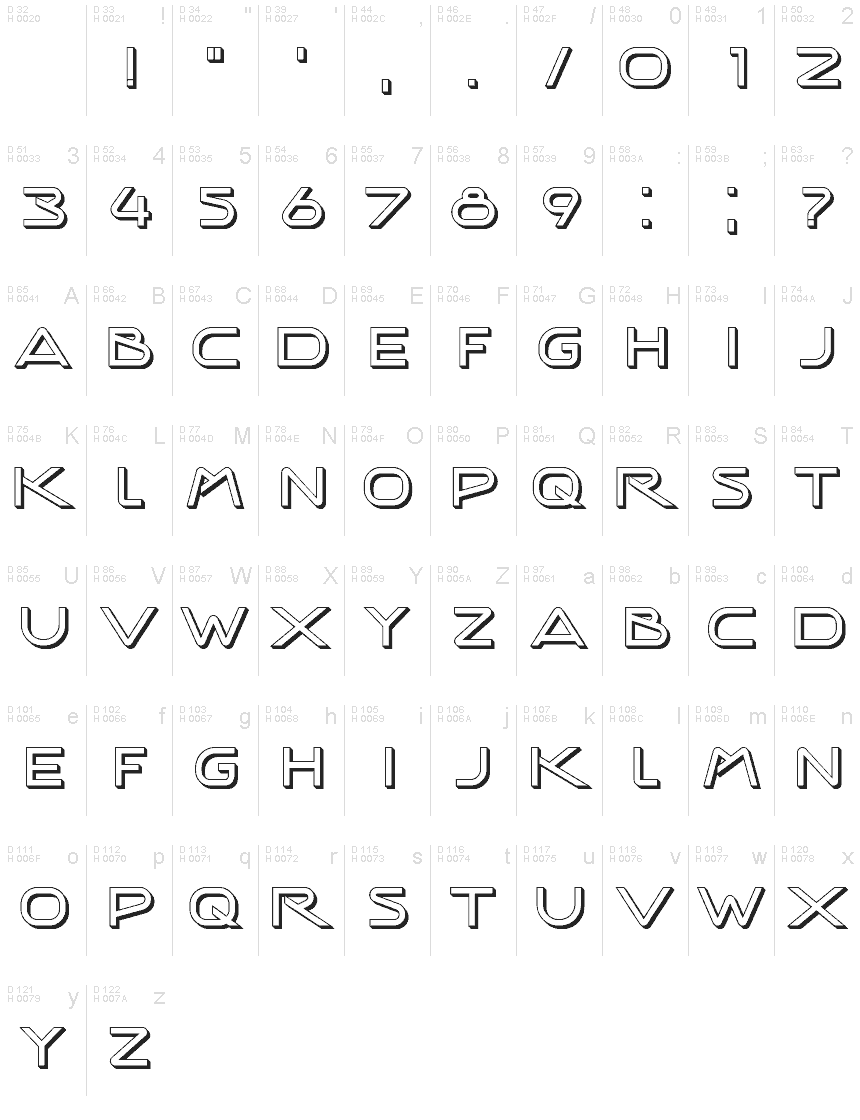
Fitness font by Vladimir Nikolic is an embossed sans serif presentation with power that will astound you! Published alongside a non-embossed version, Fitness is a geometric, sharp, utilitarian, futuristic, contemporary font in technical style. The best part is that Fitness is free to download and use.
Can not come up with a list of projects to complete with this tool? Structured websites or app design are examples. Other projects to consider include sports-related branding and advertising; the message size will not be an issue as Fitness works for both title and regular body text sizes.